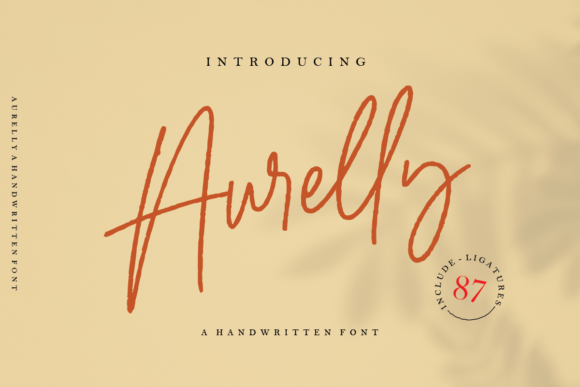
Behold Aurelly Font, the enchanting script that dances across your screen, evoking a symphony of emotions with its graceful strokes. Created by the masterminds at Geranium.co, this font is a visual masterpiece, a love letter to the art of typography, waiting to be discovered by discerning designers and typography enthusiasts.
Aurelly Font boasts a personality as captivating as its form. Its delicate and sweet nature lends it an ethereal charm, while its modern elegance commands attention, making it the perfect choice for projects that demand a touch of sophistication. Let your imagination run wild as you explore the boundless possibilities that await you with Aurelly Font.
Immerse yourself in the world of Aurelly Font, where each character is a work of art, meticulously crafted to evoke a sense of wonder and delight. Its graceful curves and playful flourishes add a touch of whimsy to your designs, whether you're creating logos, branding materials, wedding invitations, or social media graphics.
With Aurelly Font, your creations will transcend the ordinary and leave a lasting impression on your audience. Its versatility knows no bounds, allowing you to effortlessly adapt it to a multitude of projects, from elegant invitations to eye-catching posters. Experience the magic of Aurelly Font and elevate your designs to new heights of creativity.